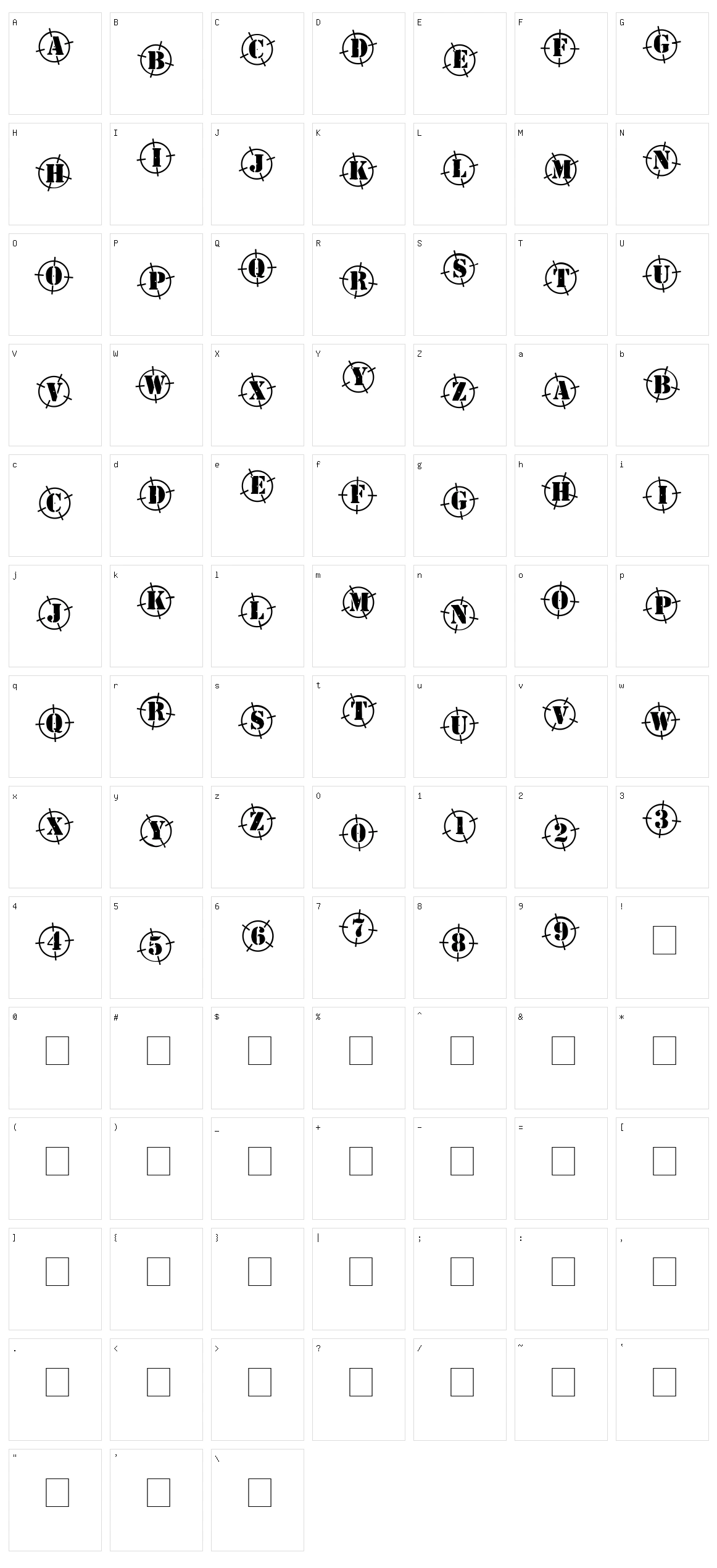
The free font See the Beast is carefully designed by TracerTong Fontworks, showcasing a thoughtful balance of creativity and usability and falls under the Decorative font style. When you download the ZIP file, it contains only 37.61 KB of font files, making it lightweight and quick to download. Please review the license details below to understand permitted usage and distribution rights. If license information is not available, we recommend using this font for personal projects only or contacting the author directly for commercial usage permissions.